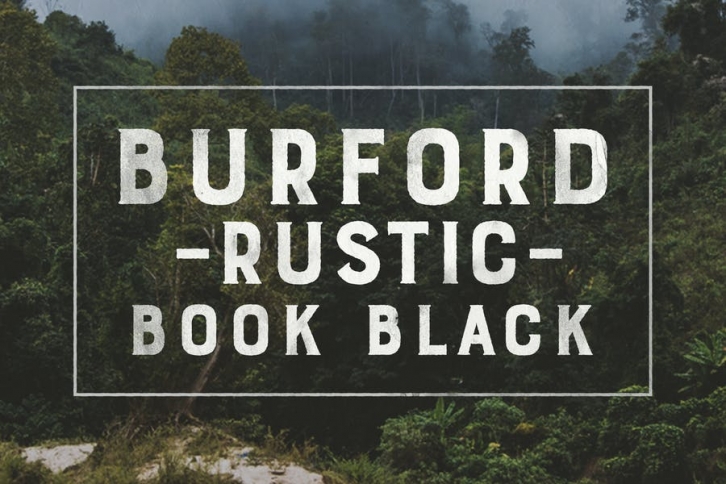
Burford Rustic is the weathered and textured alternative to the Burford Family. It works the same way as Burford as a layer-based font family, but with some style variations and new layering options. It includes 20 font files, starting with four texture variations from Black, Bold, Light to Ultralight. It also includes and Outline and two Inline Weights. Additionally it offers three line weights (light, medium and bold) for top layering options. There are two extruded fonts and two drop shadow fonts, all either in a solo version and set with Burford Rustic Black for users not using Opentype programs. For users that have Opentype programs, such as Adobe Illustrator, Photoshop, InDesign, Microsoft Publisher and Quark, each font also comes with a set of Stylistic Alternatives for letters A C E F G H P Q R. There are two versions of each letter, and by using contextual alternatives, no two letters next to each other will be the same.
Burford Rustic Basic package is created for users who don’t have access to programs with Opentype capabilities and are unable to use the layering effect. Burford Rustic can still be a powerful tool as each font can also be used on it’s own. It includes every font file not needed for the layering effect.
The Burford Rustic Ornaments uses all basic keyboard characters - around 100 total elements per set. They are designed to go specifically with Burford Rustic and use the same textured edge. The set includes: banners, borders, corners, arrows, line breaks, catchwords, anchors and many more!